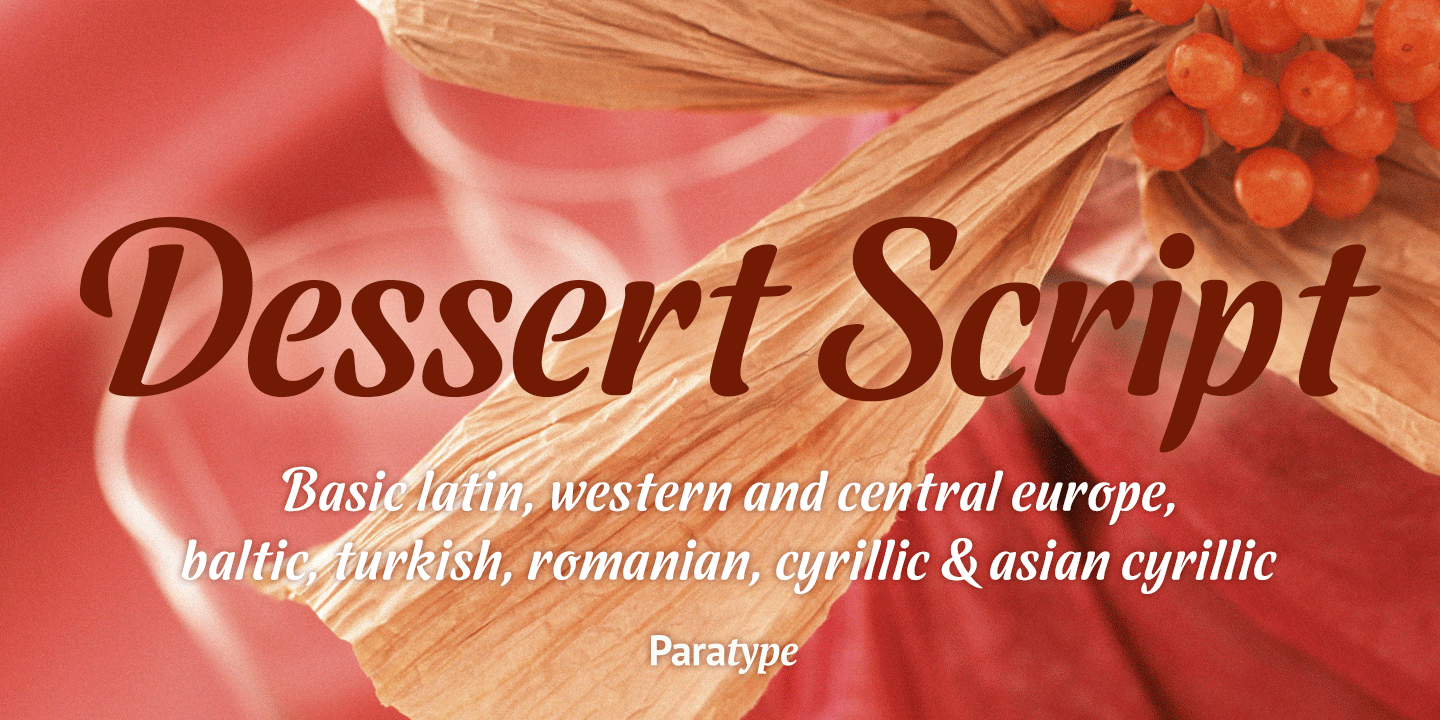
Dessert Script Font excels in various design applications including bakery signage, confectionery branding, sweet shop logos, dessert menu designs, cake packaging materials, ice cream advertisements, pastry chef presentations, and delightful social media graphics. This sweet typeface adapts deliciously to both tempting digital platforms and mouth-watering print materials, making it perfect for designers seeking sugary charm and culinary script elegance in their visual communications.
Dessert Script Font generates excitement among creative professionals due to its sweet character and script styling that instantly conveys indulgence and culinary artistry. The font's flowing letterforms and dessert-inspired proportions create an immediate sense of sweetness and gourmet sophistication. Its delicious personality makes it particularly appealing for brands wanting to communicate sweet treats, culinary craftsmanship, and dessert excellence in their visual identity.
The Dessert Script Font family includes multiple weights and styles such as Regular, Bold, Light, Flourished, and Sweet variations. Each family member maintains script design principles while offering distinct culinary characteristics. The Light weight provides delicate sweet elegance for refined applications, while the Flourished version delivers decorative impact for indulgent headlines and dessert brand statements.
Culinary designers frequently choose Dessert Script Font Free Download for projects requiring both sweet authenticity and gourmet distinction. This typeface demonstrates exceptional effectiveness across dessert industries including bakeries, confectioneries, pastry shops, and sweet treat brands. Its sweet character allows organizations to communicate culinary indulgence while maintaining excellent readability and delicious visual appeal that makes audiences crave the sweet experiences and gourmet desserts being showcased.